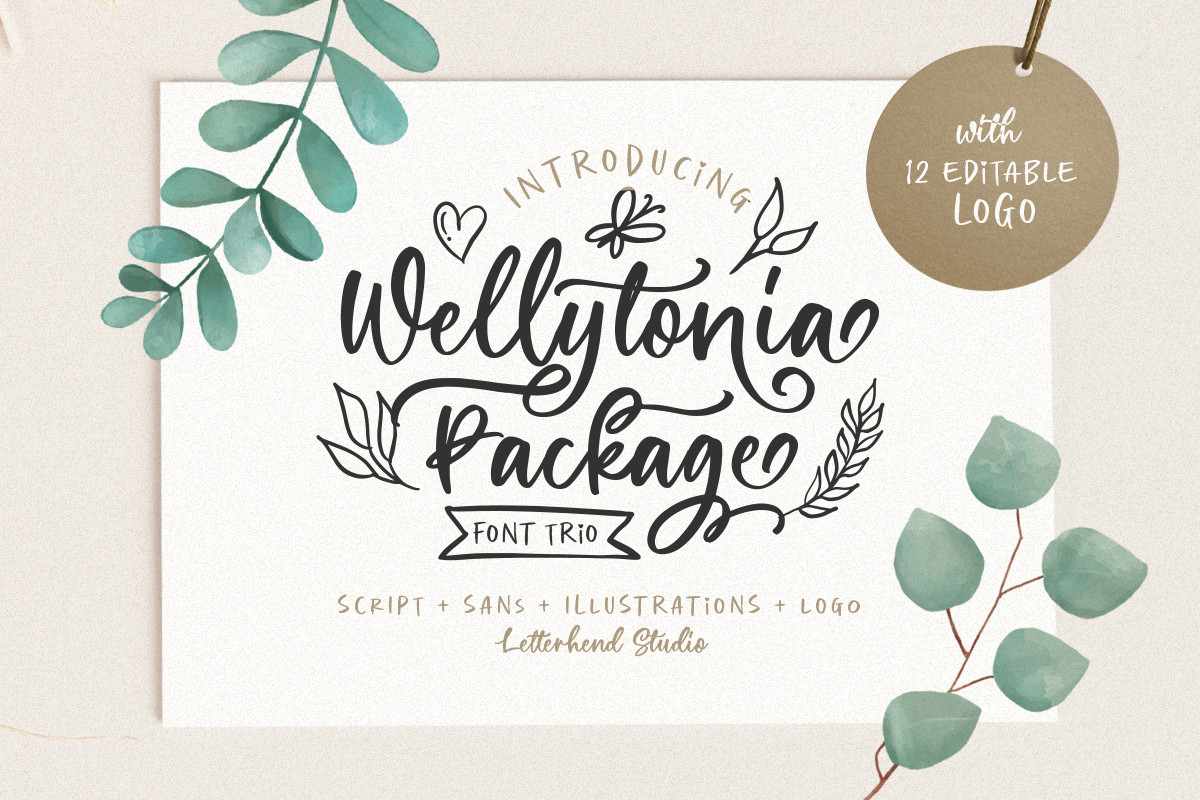
Wellytonia Package Font
Wellytonia Package Font is perfect for comprehensive branding systems, complete packaging design projects, multi-layered marketing campaigns, sophisticated product line identities, integrated corporate communications, versatile logo design collections, dynamic advertising portfolios, cohesive brand identity packages, professional presentation suites, and extensive design system implementations. This versatile typeface brings systematic elegance to design agencies, corporate identity consultancies, packaging design studios, brand development firms, and comprehensive marketing solution providers.
Wellytonia Package Font is exciting because it represents the ultimate design solution through its comprehensively crafted font system that delivers everything designers need for complete brand identity projects. The font features a harmonious collection of coordinated typefaces with versatile weights and styles that work seamlessly together to create cohesive visual narratives across all brand touchpoints. Its distinctive package philosophy demonstrates design completeness with carefully integrated elements that ensure consistent brand expression and professional flexibility. The font's systematic presence and comprehensive authenticity make it perfect for organizations seeking to communicate design excellence, brand consistency, and professional completeness in their visual communications.
Wellytonia Package Font family includes various systematic styles: Thin Package, Light Package, Regular Package, Medium Package, Bold Package, Black Package, Italic Package, Condensed Package, Extended Package, Display Package, Script Package, and Complete Package variants. Each package component maintains perfect design harmony while offering different visual solutions for diverse comprehensive design applications. The extensive font collection ensures consistent systematic branding across multi-platform campaigns, complete product lines, and integrated communication strategies.
Whether you're creating complete brand identity systems, designing comprehensive marketing packages, developing systematic website headers, or crafting integrated promotional campaigns, Wellytonia Package Font delivers outstanding systematic appeal and comprehensive authenticity. The font's distinctive complete personality excels in systematic logos, comprehensive packaging design, integrated applications, and brand projects where design completeness and systematic consistency are essential.